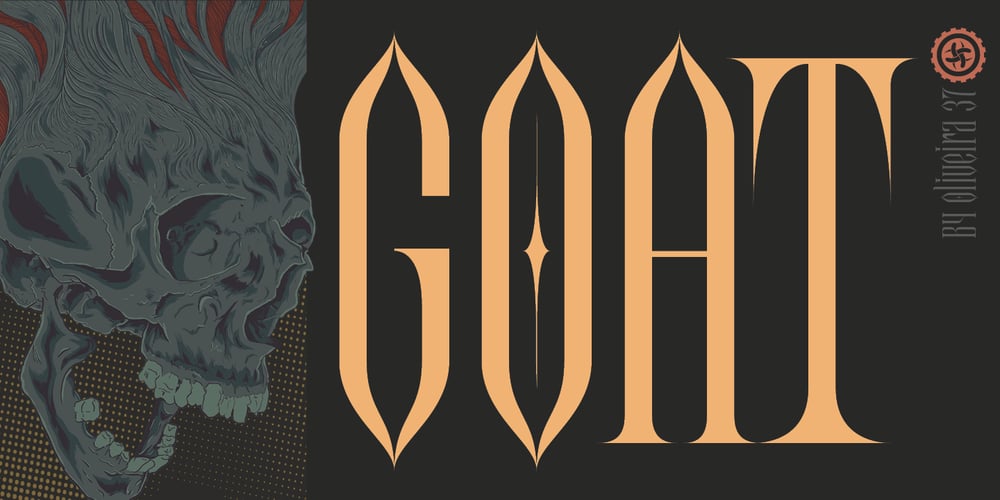
Goat
Goat font
Goat Font Family was designed by Jackson Amaral and published by Oliveira 37. Goat contains 1 styles and family package options. Goat is a font display with extremely fine and sharp serifs, inspired by Gothic architecture, which brings a vertical elongation in extent and an allusion to the typical ogival vaults of the style. A font that not only carries a texture of writing with magnitude and elegance, but also causes some kind of strangeness for the subversion of some typographic laws.